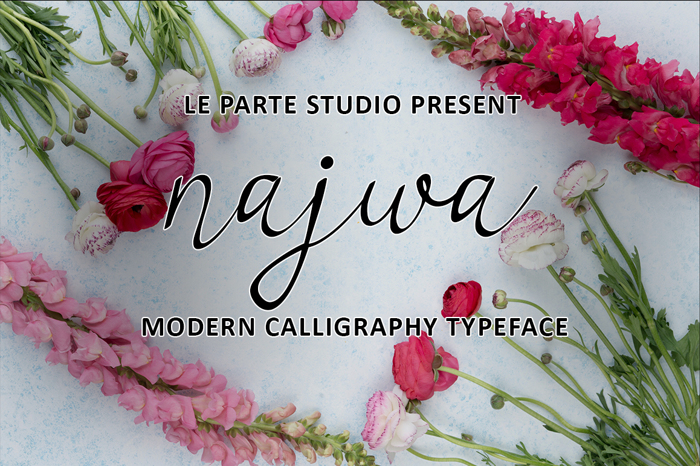
najwa Font
najwa Font is a Handwriting font and was created on . Since then, it has been downloaded 2,456 times and added to 65 collections. 2 people have liked najwa Font and given it a thumbs up.
Romances Script Font, a handmade font awesome, new fresh & modern script with a calligraphy style. Can used for anything from promotional material and handwritten quotes, to product packaging, labels,logo newsletters, posters, merchandise and branding projects